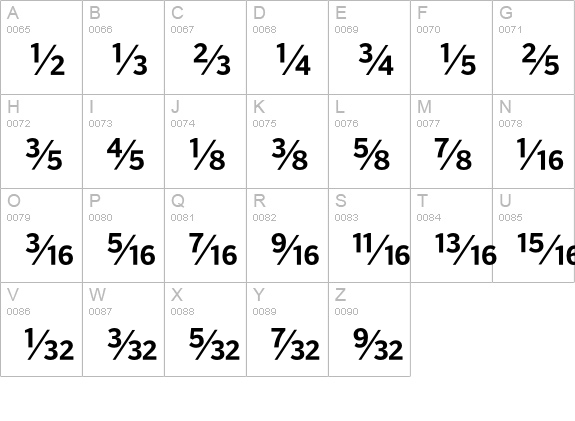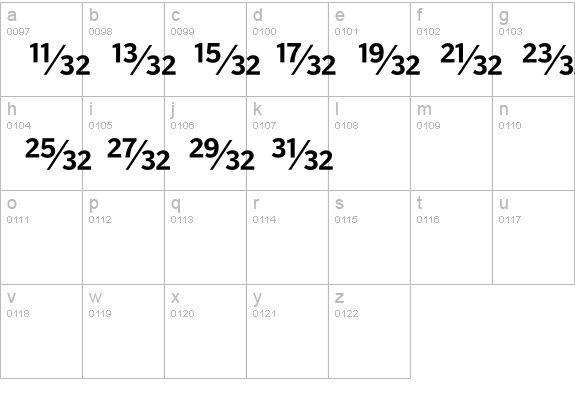
PoynterAgate-RegularFracOne Font Details
PoynterAgate-RegularFracOne is a refined and elegant typeface that exudes sophistication and professionalism. Its clean lines and delicate curves make it a versatile choice for a wide range of design projects, from editorial layouts to branding materials. The font's classic and timeless appearance is perfect for creating a sense of luxury and exclusivity. What sets PoynterAgate-RegularFracOne apart is not only its aesthetic appeal but also the fact that it is available for free download at FontsMarket.com. This means that designers and creatives can access this premium quality font without any cost, making it a valuable resource for both personal and commercial projects. Whether you're looking to elevate your typography game or add a touch of refinement to your designs, PoynterAgate-RegularFracOne is an excellent choice. Download it for free today and see how it can enhance your creative work.